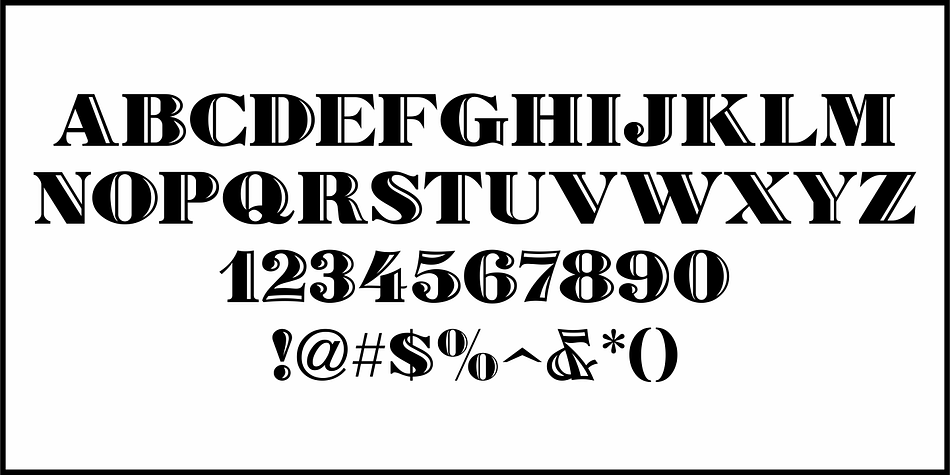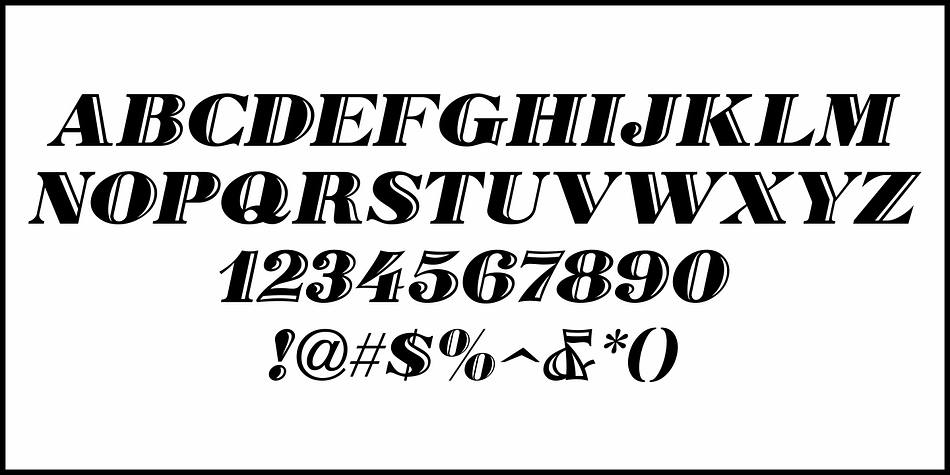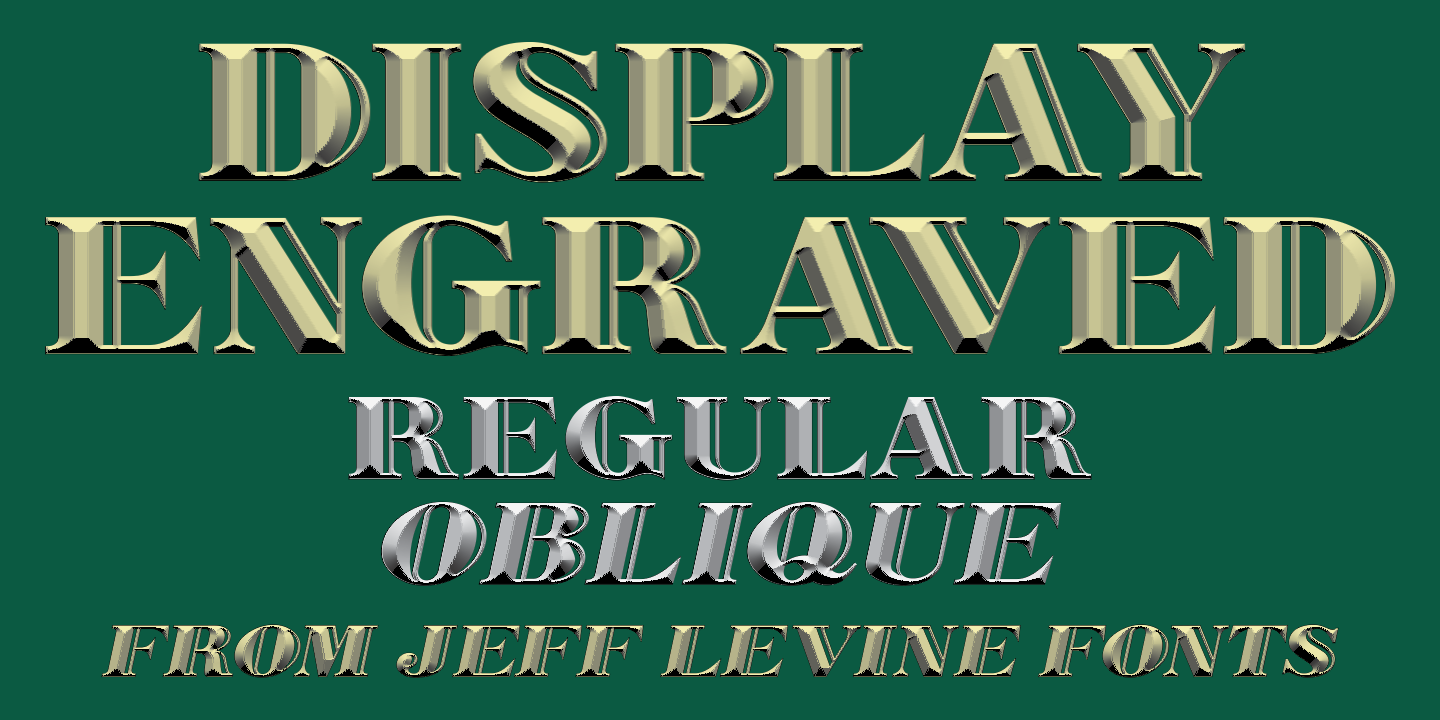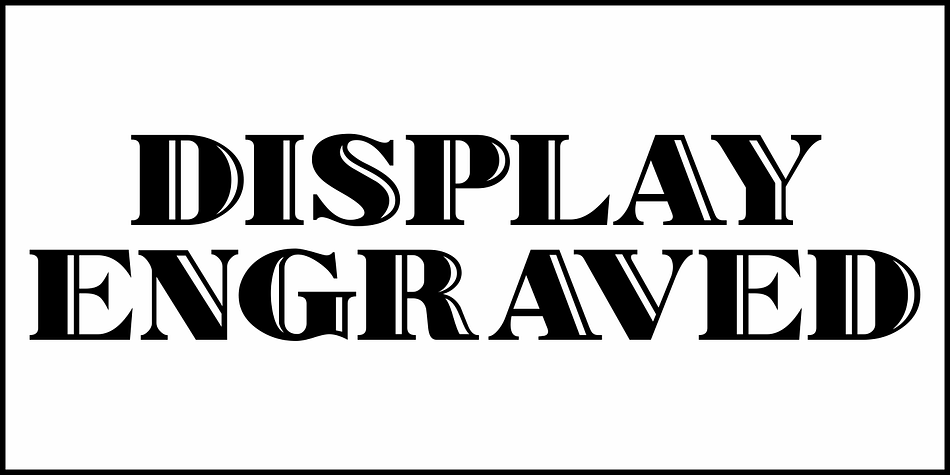
DISPLAY ENGRAVED JNL
Designed by Jeff Levine, Display Engraved JNL is a display serif font family. This typeface has two styles and was published by Jeff Levine Fonts.
Display Engraved JNL was inspired by the bold, engraved Sphinx Blanc from the Deberney & Peignot circa 1925, and is available in both regular and oblique versions.